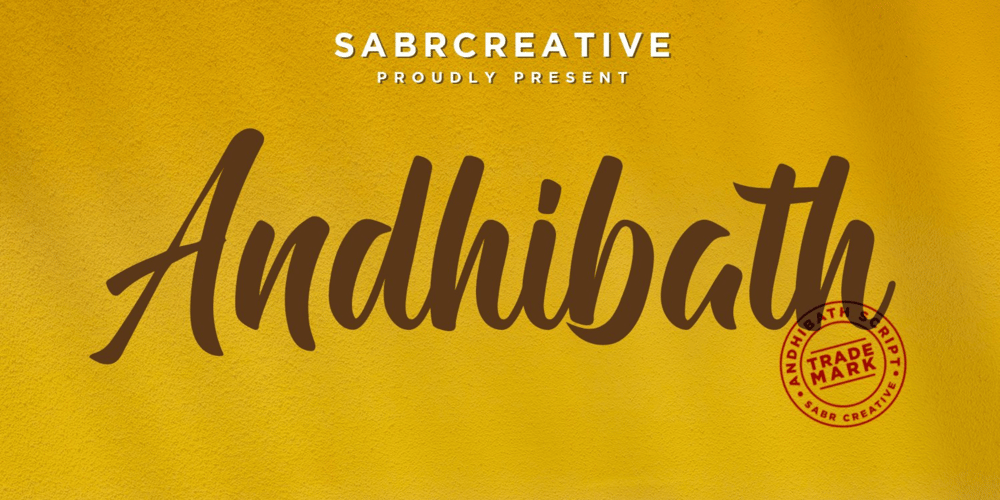
Andhibath Font Family was designed by Irpan Maulana and published by Sabrcreative. Andhibath contains 1 styles and family package options. Introducing Andhibath Bold Script Font, a captivating script typeface that exudes elegance and versatility. With its bold strokes and graceful curves, this font is perfect for adding a touch of sophistication to your design projects. Whether you’re creating invitations, branding materials, packaging, or any other creative work, Andhibath will elevate your designs with its unique charm.The Andhibath font features both uppercase and lowercase letters, allowing you to mix and match different letterforms for a customized look. It also includes numbers and punctuation, ensuring that your compositions are comprehensive and well-rounded. With multilingual support, you can effortlessly incorporate various languages into your designs, making it suitable for projects with a global reach.One of the standout features of Andhibath is its PUA encoding. This means that accessing the font’s special ligatures and glyphs is a breeze, giving you even more creative possibilities. The ligatures add a natural and handcrafted feel to your text, enhancing its visual appeal.With its script style, Andhibath captures the essence of handwritten elegance. It is ideal for a wide range of design applications, from wedding stationery and logos to social media graphics and advertising materials. The versatility of this font allows you to adapt it to different themes and moods, whether you’re aiming for a classic, modern, or whimsical look.Experience the beauty and versatility of Andhibath Bold Script Font. Let its graceful curves and bold presence make a lasting impression in your designs.